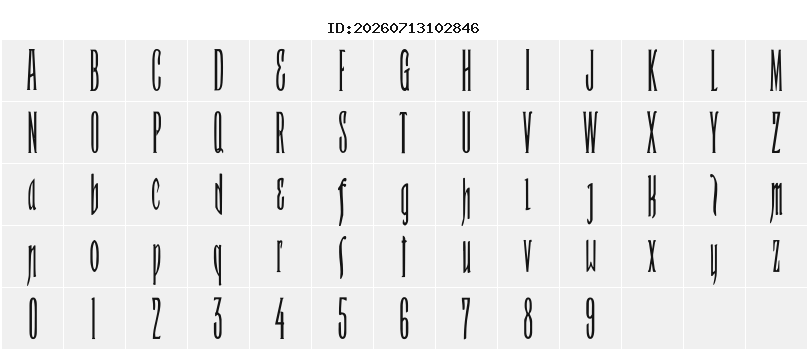
Rammstein Preview
• Font Name: Rammstein
• Full Font Name: Rammstein
About Rammstein.ttf
Rammstein.ttf is a modern, elegant sans-serif font designed for ultimate readability and visual harmony. Perfect for branding, headlines, web design, and print materials.